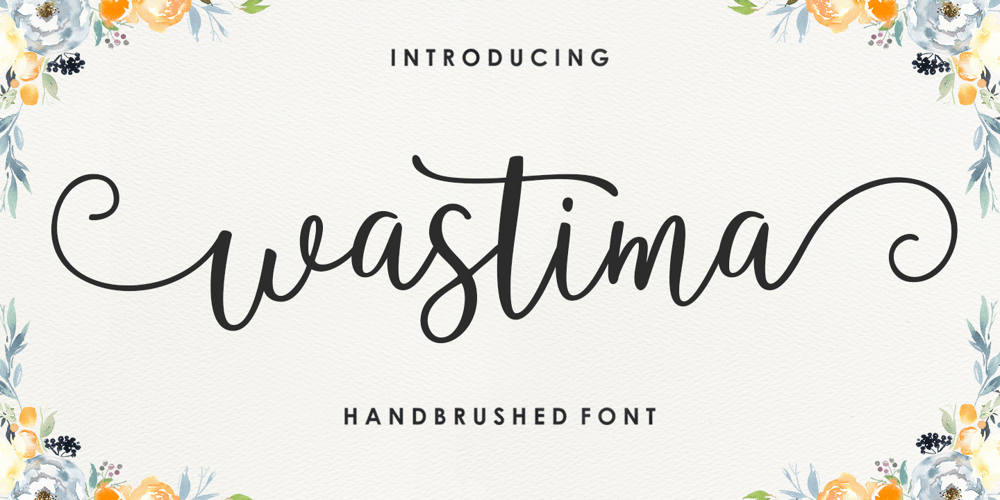
Wastima Font Family was designed by M Akmal and published by Mega Type. Wastima contains 1 styles and family package options. Wastima Script is a new modern script font with an irregular baseline. Trendy and feminine style. Wastima looks lovely on wedding invitations, thank you cards, quotes, greeting cards, logos, business cards and more. Perfect for using in ink or watercolour. Including initial and terminal letters, alternates and multiple language support.To enable the OpenType Stylistic alternates, you need a program that supports OpenType features such as Adobe Illustrator CS, Adobe Indesign & CorelDraw X6-X7, Microsoft Word 2010 or later versions. There are additional ways to access alternates/swashes, using Character Map (Windows), Nexus Font (Windows), Font Book (Mac) or a software program such as PopChar (for Windows and Mac).How to access all alternative characters:https://www.youtube.com/watch?v=Go9vacoYmBwhttps://www.youtube.com/watch?v=XzwjMkbB-wQhttps://www.youtube.com/watch?v=x1A_ilsBsGshttps://www.youtube.com/watch?v=xFlMwARHusYIf you need help or have any questions, please let me know. I’m happy to help ๐ Thanks & Happy Designing!